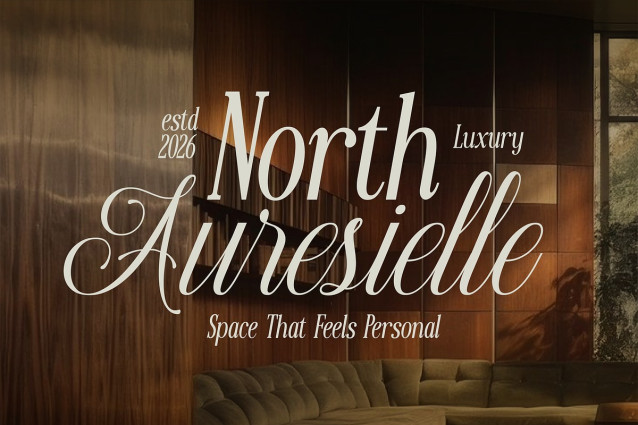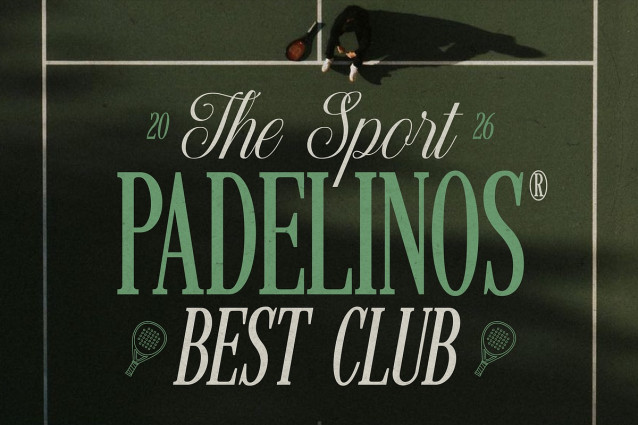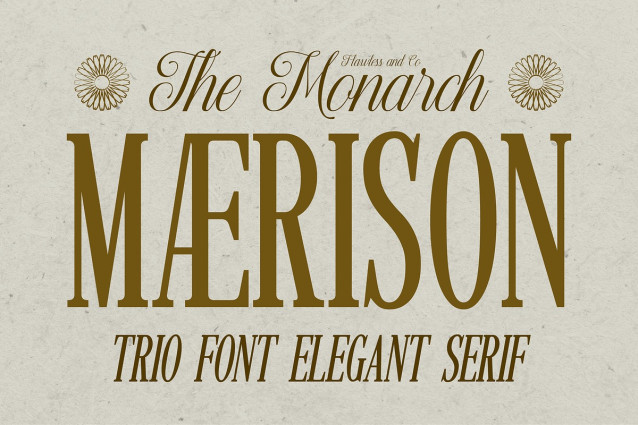
Maerison Font
Maerison Font is a beautifully crafted trio font collection that combines the timeless sophistication of serif typography with the graceful beauty of script lettering. Designed to create effortless font pairings, Maerison includes an elegant serif regular, a refined serif italic, and a flowing script font that work together harmoniously across a wide range of creative projects.
Featuring refined letterforms, luxurious details, and balanced visual contrast, Maerison delivers a sophisticated and versatile typographic experience. The serif styles provide structure, elegance, and professionalism, while the script style introduces fluidity and artistic charm. Whether used separately or combined, Maerison helps create stunning designs with a polished and memorable appearance.